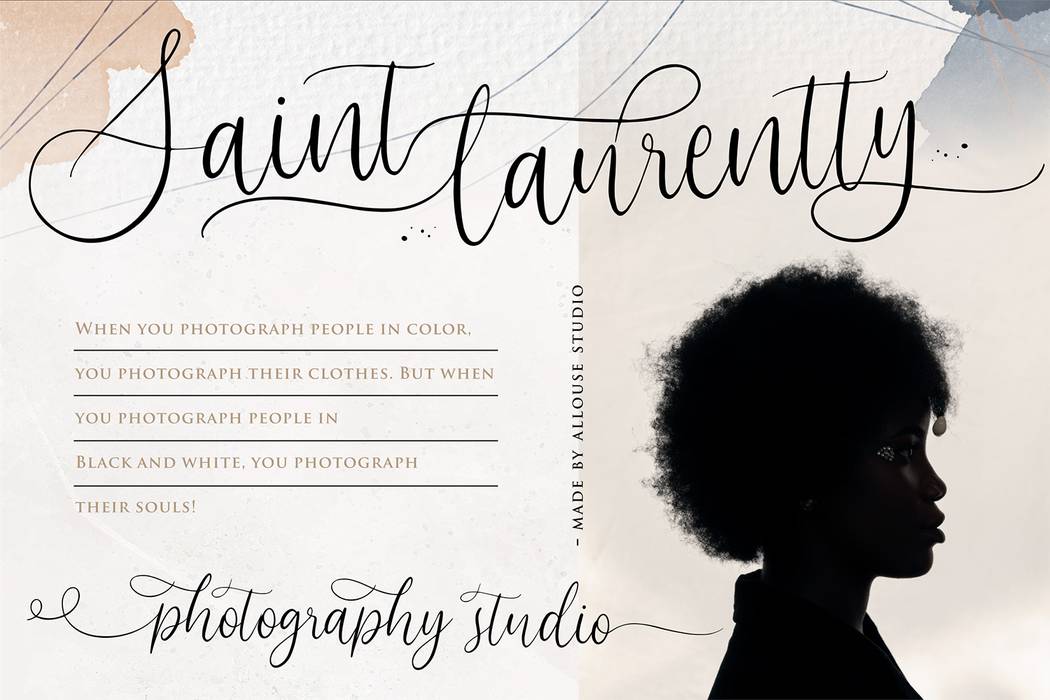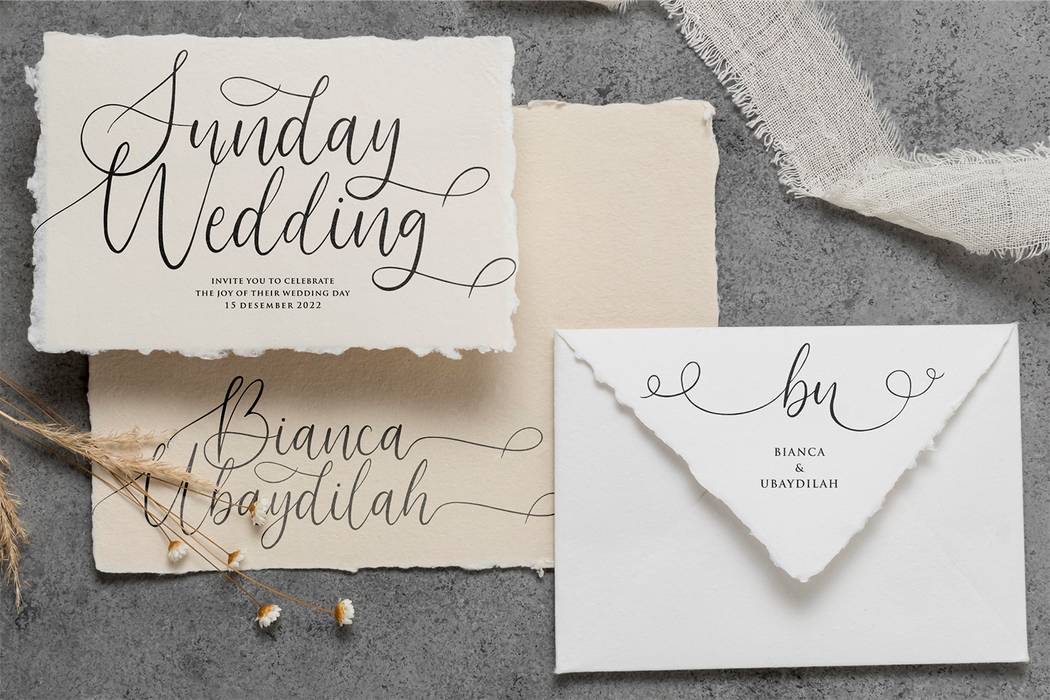
Val Edeline is an elegant, delicate script font characterized by its thin, flowing strokes and graceful, handwritten feel. With its refined, high-contrast lines and sophisticated letterforms, it brings a stylish and feminine touch, making it ideal for luxury branding, wedding invitations, and upscale editorial designs. This font conveys a sense of charm and refinement, perfect for projects seeking an intimate yet polished appearance.
Val Edeline Font
About Val Edeline Font
| Font family | Val Edeline Font |
| Designer | Allouse Studio |